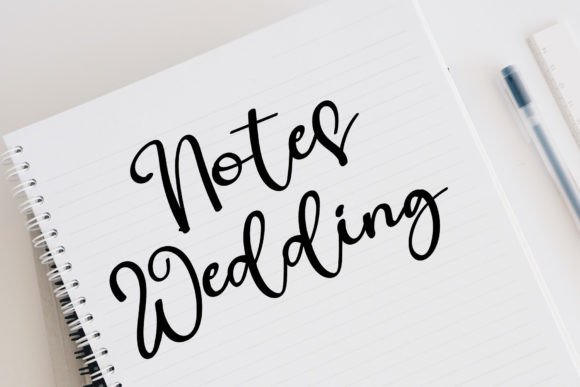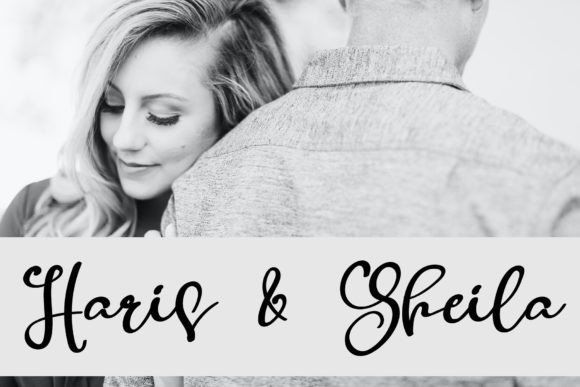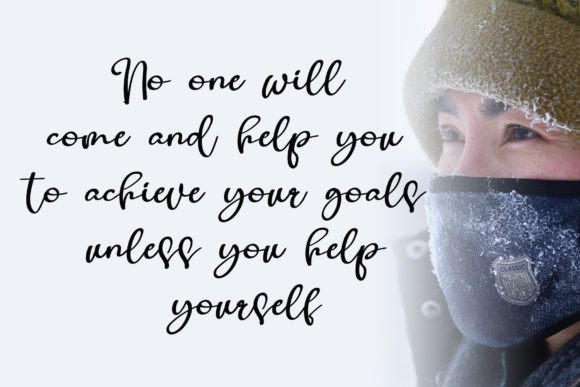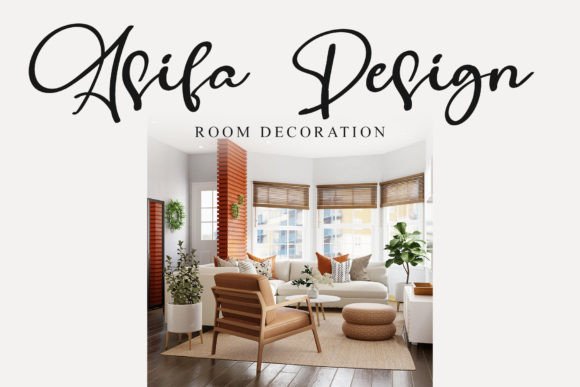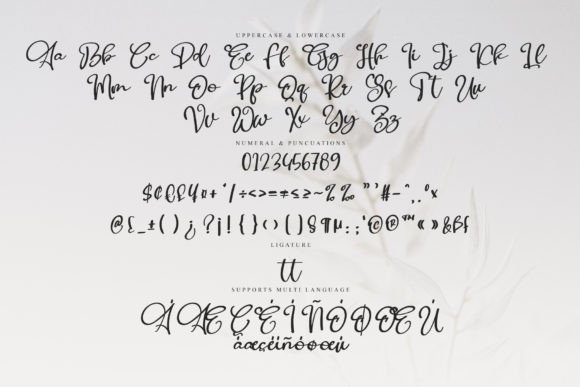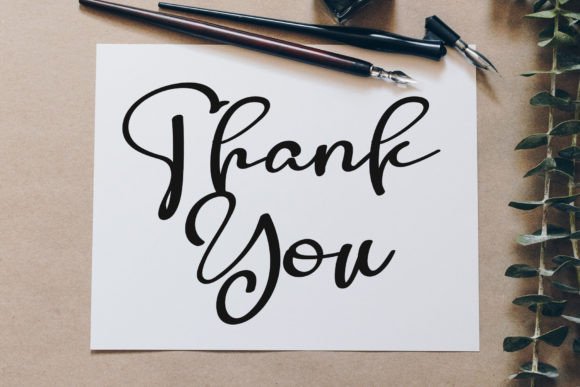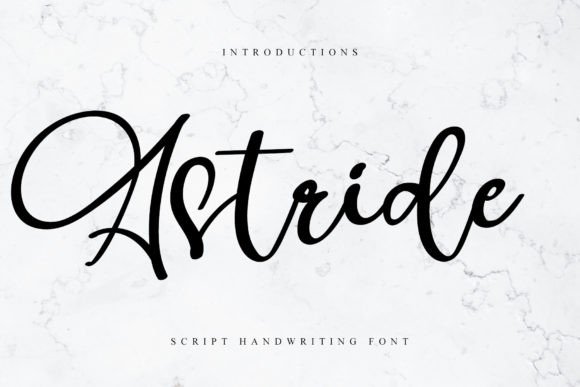
Astride Font: A Festive and Merry Typeface for the Holiday Season
The holiday season is upon us, and with it comes the need for festive and fun designs that capture the spirit of the season. If you’re a designer or crafter looking for a typeface that embodies the magic of Christmas, look no further than Astride Font. This delightful font is perfect for adding a touch of enchantment to your holiday-themed projects, from greeting cards and gift tags to festive posters and social media graphics.
The Charm of Astride Font
Astride Font is a decorative typeface that exudes a sense of whimsy and nostalgia. Its intricate details and ornate flourishes evoke the classic feel of traditional holiday decorations, while its clean lines and modern aesthetic ensure it remains fresh and relevant. Whether you’re creating a vintage-inspired Christmas card or a modern holiday-themed social media post, Astride Font is the perfect choice.
Key Features of Astride Font
- Festive and Merry: Astride Font is designed to capture the spirit of the holiday season, with a playful and cheerful vibe that’s sure to put a smile on your face.
- Decorative Elements: The font features intricate details and ornate flourishes, adding a touch of elegance and sophistication to your designs.
- Whimsical Flair: Astride Font has a playful, whimsical feel that’s perfect for creating festive and fun designs.
- Perfect for Holiday Projects: Whether you’re creating greeting cards, gift tags, or holiday-themed posters, Astride Font is the perfect choice.
Using Astride Font in Your Designs
Astride Font is incredibly versatile, and can be used in a variety of design applications. Here are a few ideas to get you started:
- Greeting Cards: Create festive and fun holiday greeting cards using Astride Font, complete with intricate details and ornate flourishes.
- Gift Tags: Add a touch of elegance and sophistication to your gift tags with Astride Font, perfect for wrapping presents or gift baskets.
- Holiday Posters: Create eye-catching holiday posters using Astride Font, complete with festive colors and decorations.
- Social Media Graphics: Add a touch of holiday cheer to your social media graphics using Astride Font, perfect for Facebook, Instagram, or Twitter.
Tips for Working with Astride Font
Here are a few tips for getting the most out of Astride Font:
- Experiment with Colors: Astride Font looks great in a variety of colors, from traditional holiday colors like red and green to more modern shades like metallic silver and gold.
- Play with Sizes: Astride Font can be used in a range of sizes, from small text to large headlines. Experiment with different sizes to find the perfect fit for your design.
- Add Decorations: Astride Font features intricate details and ornate flourishes, but you can also add your own decorations and graphics to really make your design pop.
Astride Font is a festive and merry typeface that’s perfect for capturing the spirit of the holiday season. With its decorative elements and whimsical flair, it adds a touch of enchantment to your designs. Whether you’re a designer or crafter, Astride Font is a great choice for any holiday-themed project. So why wait? Download Astride Font today and start creating your own festive and fun holiday designs!